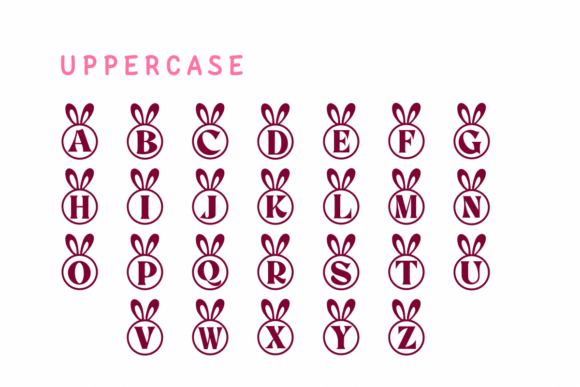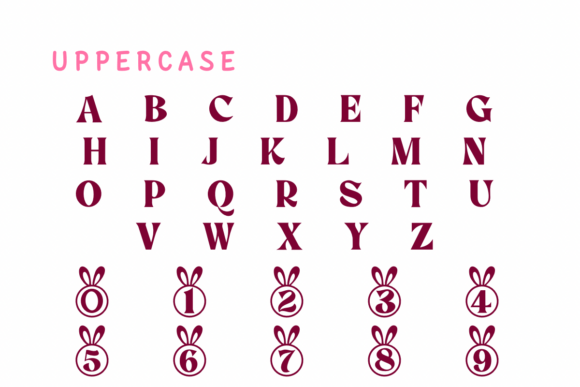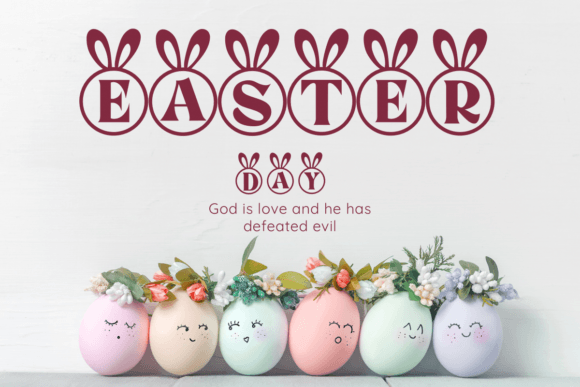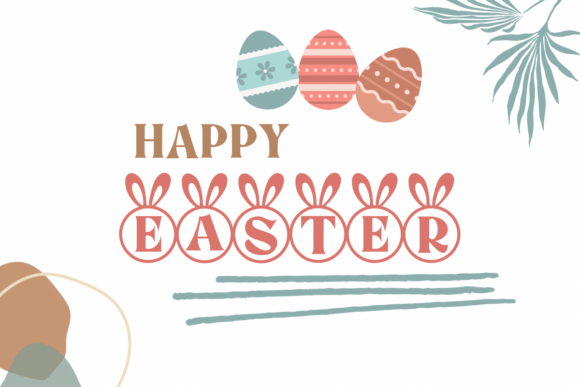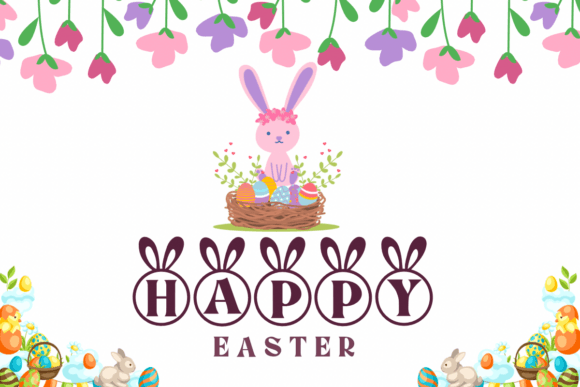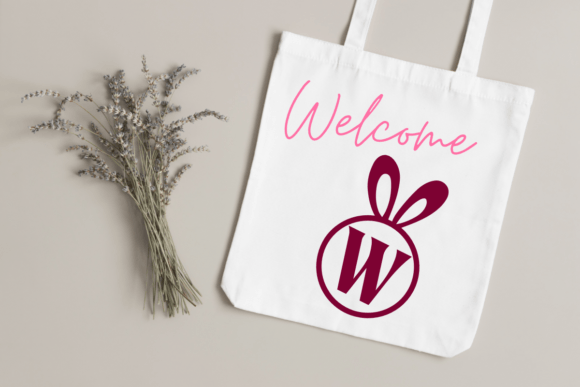
Easter Cute Font: The Perfect Addition to Your Easter Designs
Are you looking for a fun and playful font to add to your Easter designs? Look no further than Easter Cute Font! This adorable decorative font is perfect for creating festive and eye-catching designs for the Easter season. In this article, we’ll take a closer look at Easter Cute Font and explore the many ways you can use it to enhance your designs.
What is Easter Cute Font?
Easter Cute Font is a decorative font designed specifically for Easter-themed designs. Its playful and whimsical style makes it perfect for creating festive and fun designs that are sure to delight. The font features cute and colorful characters, including letters, numbers, and symbols, all designed to add a touch of Easter cheer to your projects.
Uses for Easter Cute Font
Easter Cute Font is a versatile font that can be used for a wide range of design projects. Here are some ideas to get you started:
- Note-taking and journaling: Add a touch of Easter fun to your notes and journals with Easter Cute Font. Use it to write headings, titles, and even entire entries.
- Greeting cards: Create adorable Easter greeting cards for friends and family using Easter Cute Font. You can add it to your card designs, or use it to write out messages and captions.
- Banners and signs: Use Easter Cute Font to create eye-catching banners and signs for Easter events, parties, or decorations.
- Social media posts: Add a touch of Easter fun to your social media posts with Easter Cute Font. Use it to create engaging and festive posts that are sure to delight your followers.
- Mugs and water bottles: Design adorable Easter-themed mugs and water bottles using Easter Cute Font. Perfect for a fun Easter gift or treat.
- Shirts and apparel: Create festive Easter-themed shirts and apparel using Easter Cute Font. Great for Easter parties, events, or just for fun.
- Stationery and paper crafts: Use Easter Cute Font to add a touch of Easter fun to your stationery and paper crafts, such as stickers, washi tape, and more.
Why Choose Easter Cute Font?
So why choose Easter Cute Font for your Easter designs? Here are just a few reasons:
- Unique and playful style: Easter Cute Font features a unique and playful style that’s sure to stand out in your designs.
- Easter-themed: The font is specifically designed for Easter-themed designs, making it perfect for the season.
- Versatile: The font can be used for a wide range of design projects, from notes and journals to social media posts and more.
Tips for Using Easter Cute Font
Here are some tips for using Easter Cute Font in your designs:
- Experiment with colors: Easter Cute Font looks great in bright, bold colors. Experiment with different colors to find the perfect combination for your design.
- Mix and match: Don’t be afraid to mix and match Easter Cute Font with other fonts and design elements to create a unique look.
- Keep it simple: Easter Cute Font is perfect for simple, yet effective designs. Don’t overcomplicate your design – sometimes less is more.
Easter Cute Font is a fun and playful font that’s perfect for adding a touch of Easter cheer to your designs. With its unique and playful style, versatility, and ease of use, it’s the perfect addition to any Easter design project. Whether you’re a designer, crafter, or just looking for a fun way to celebrate Easter, Easter Cute Font is sure to delight. So why not give it a try and see what amazing Easter designs you can create?